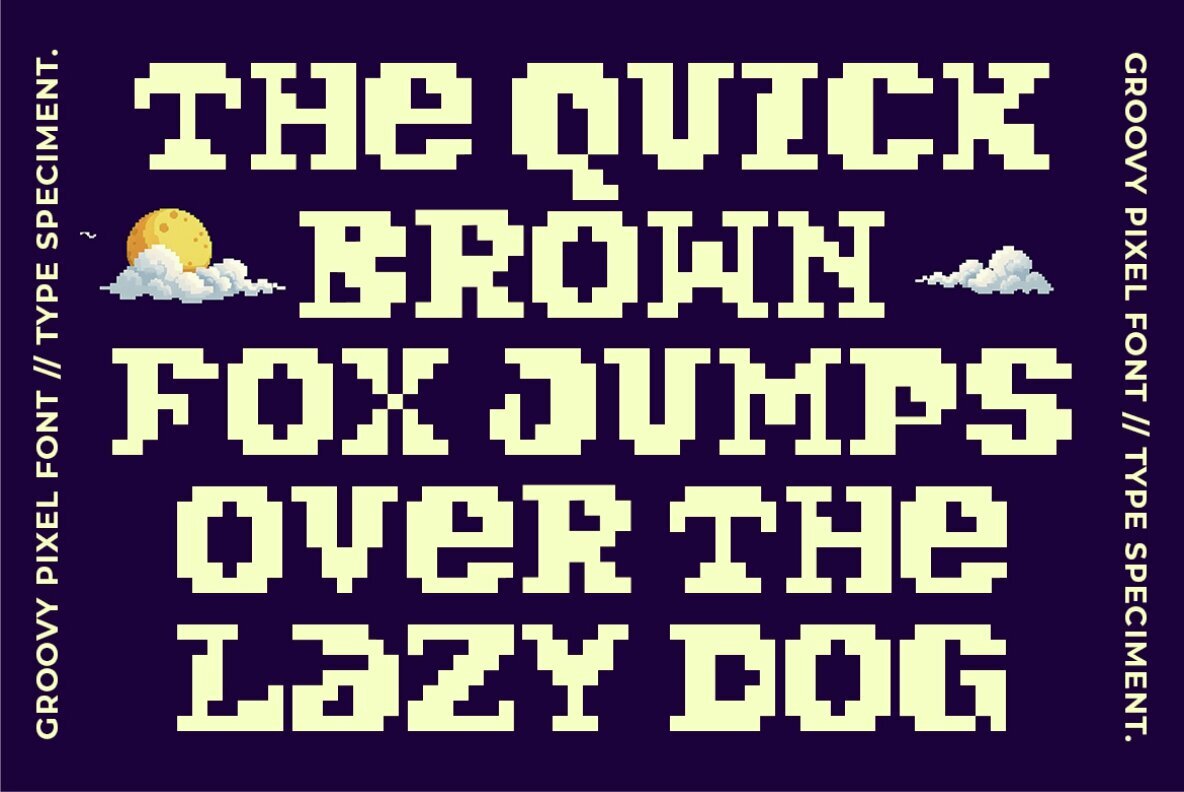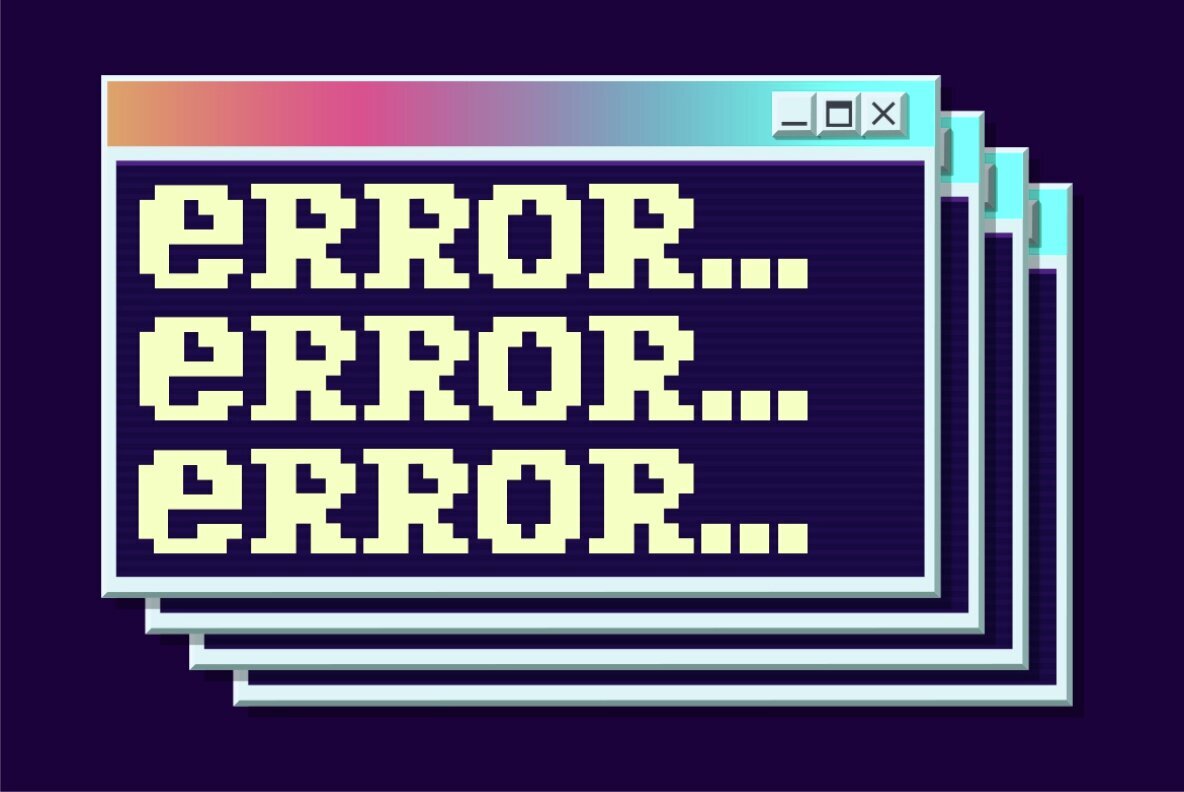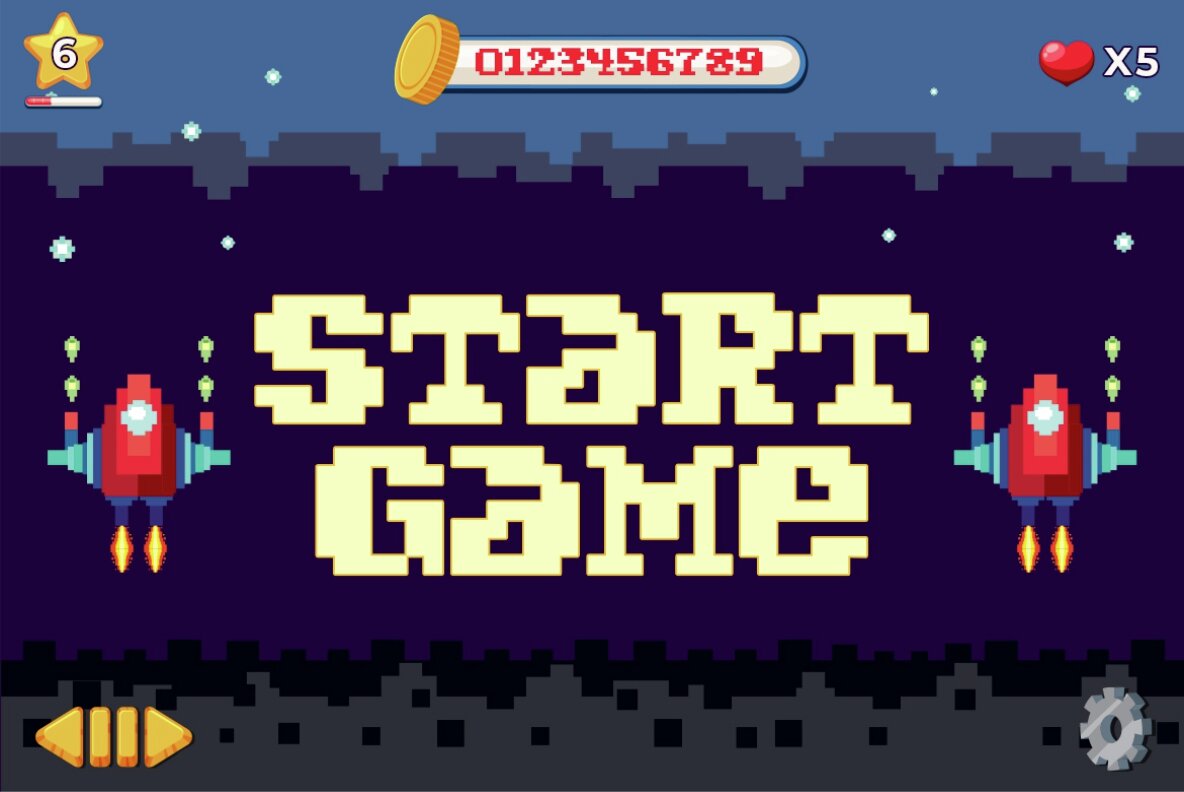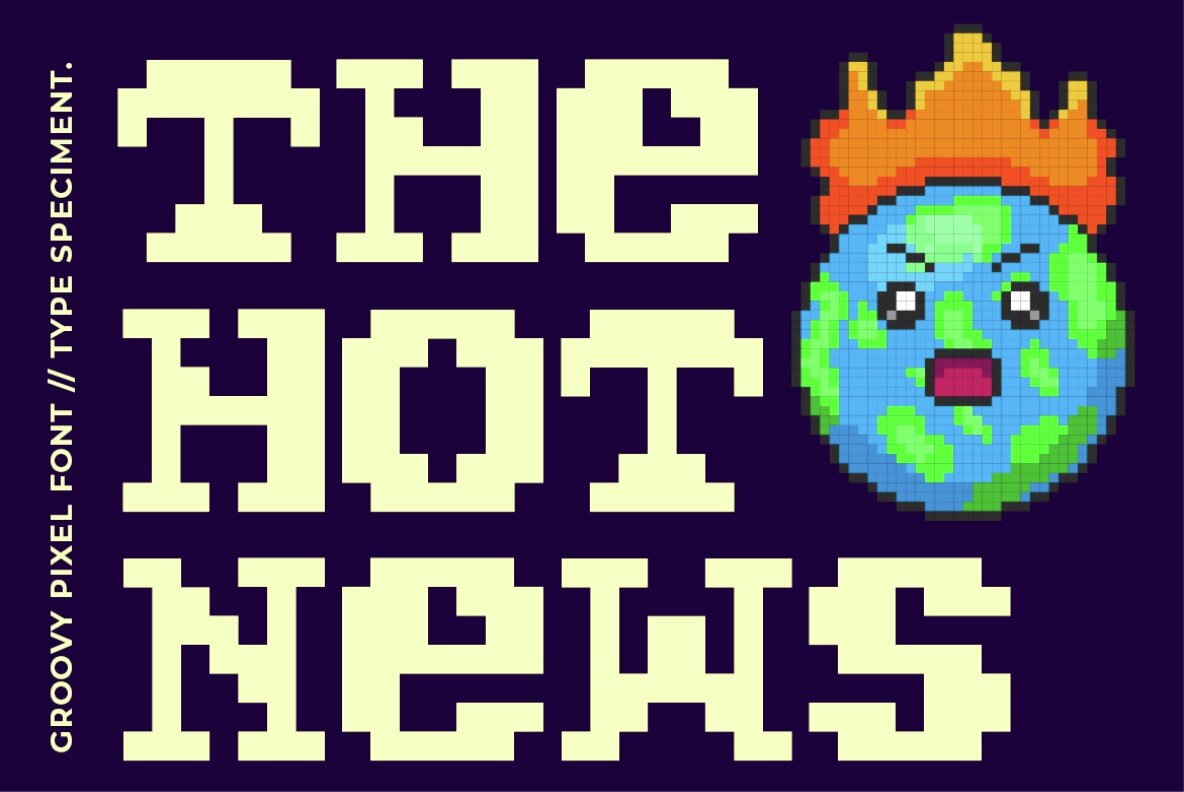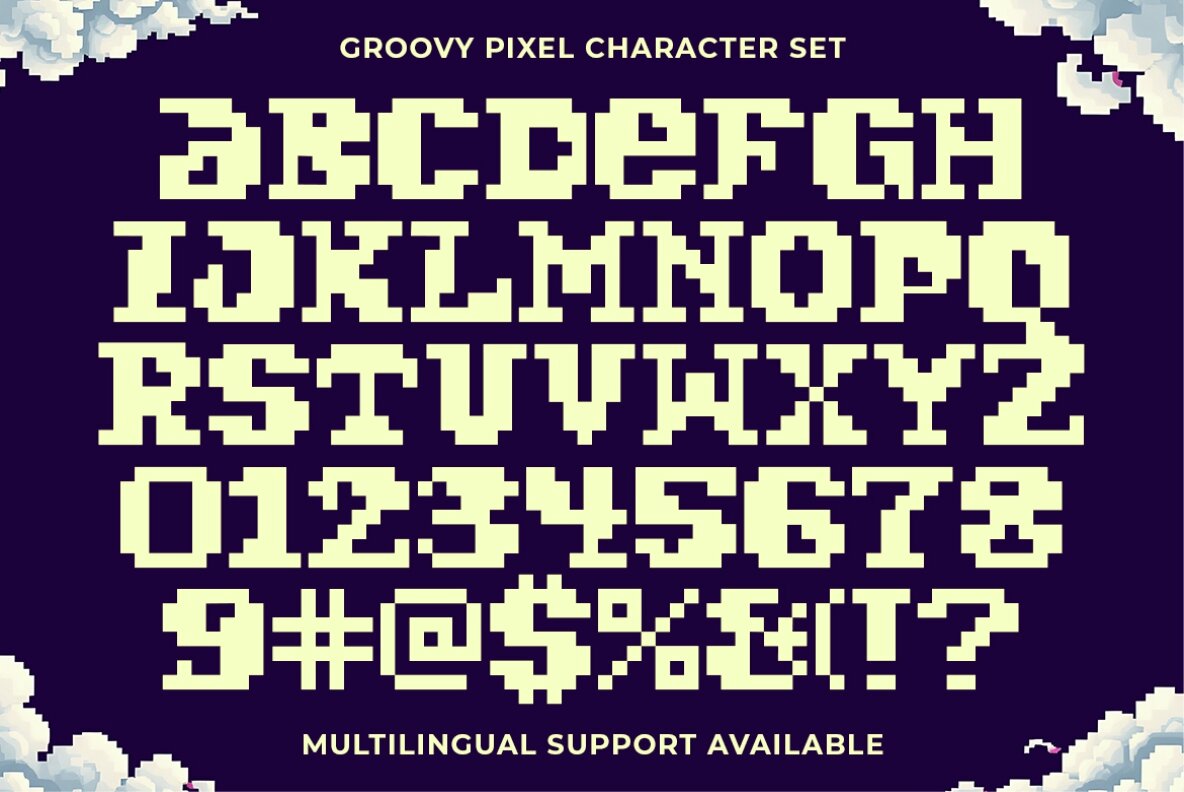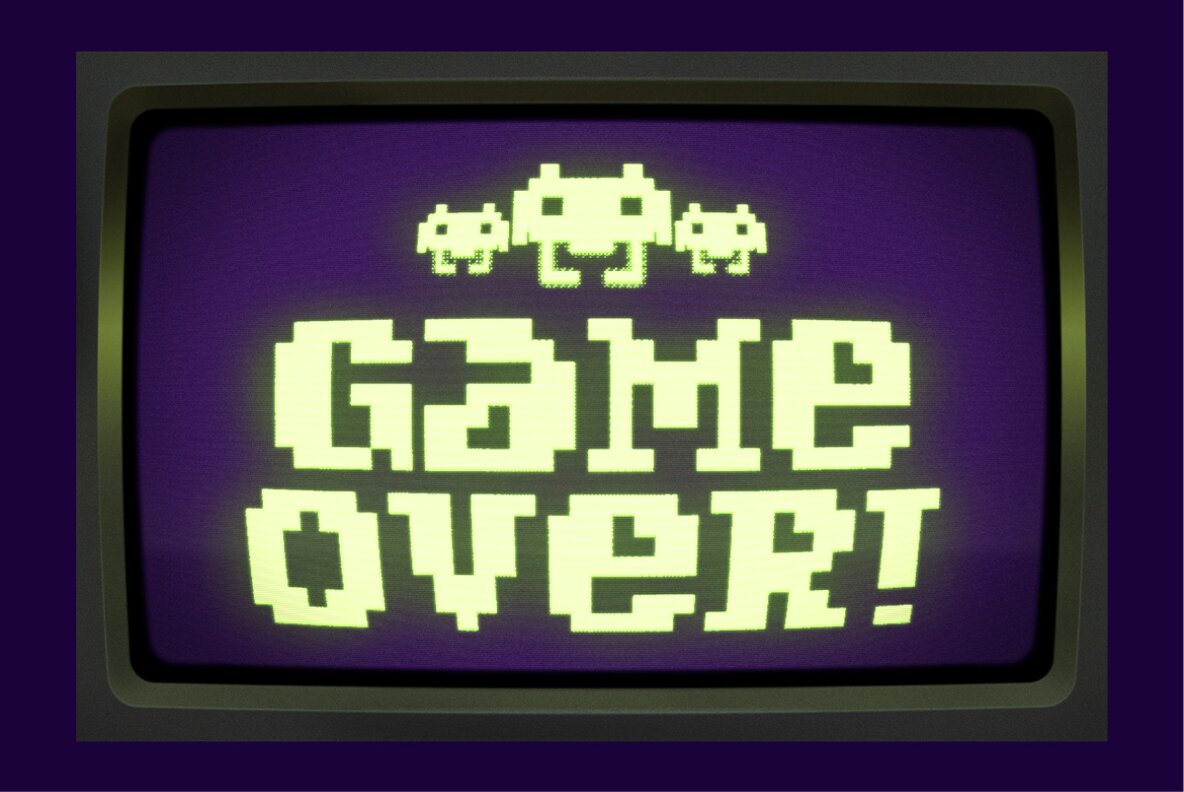
Groovy Pixel Font
Groovy Pixel
Groovy Pixel is a charming pixel display font that evokes the nostalgic aesthetics of retro video games. Featuring a pixelated design, it's perfect for creating a vintage vibe in game design themes. This playful and vintage font adds a unique touch to various applications, making it ideal for delivering a fun, retro flair to any project.
Groovy Pixel includes a comprehensive character set with uppercase, lowercase, numerals, punctuation, and multilingual support, making it versatile and practical for designers wanting a complete and usable typeface for diverse creative needs. Whether you're working on a gaming project or aiming to incorporate a nostalgic feel into your designs, Groovy Pixel offers a distinct and eye-catching option.